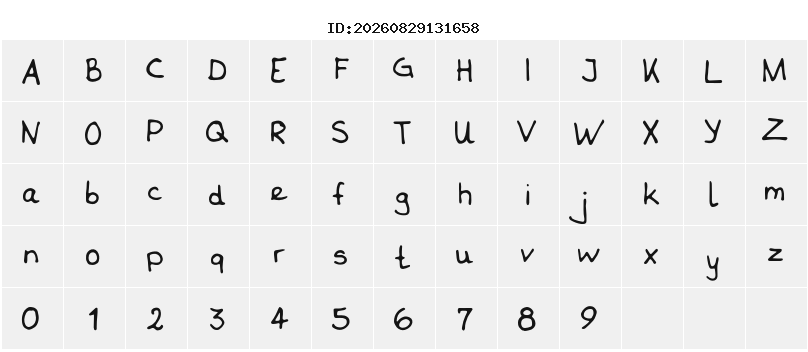
Thi Preview
• Font Name: Thi
• Full Font Name: Thi
• PostScript Name: Thi
• Designer: tudy1311
• Manufacturer: tudy1311
About Thi.otf
Thi.otf is a modern, elegant sans-serif font designed for ultimate readability and visual harmony. Perfect for branding, headlines, web design, and print materials.